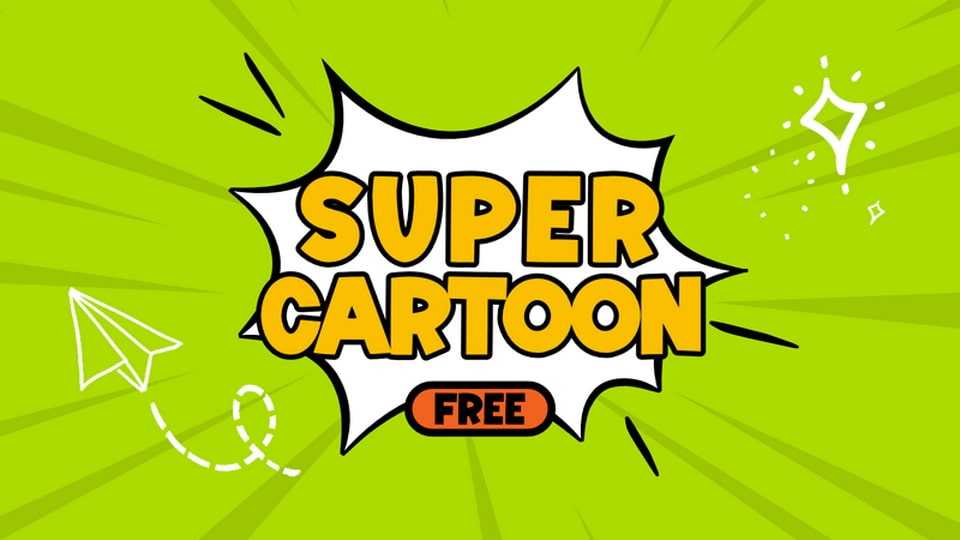
Download Super Cartoon font, a playful handcrafted cartoon typeface that radiates fun and cheerfulness. With its whimsical shapes and bouncy letterforms, it feels as if each character has been lovingly drawn by hand.